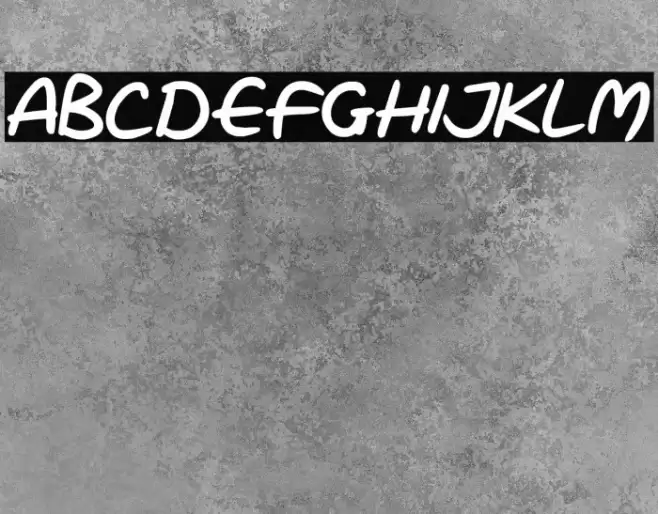
Love Marker Font
Love Marker Description
This playful and energetic font features a handwritten style with a bold and rounded appearance. The letters are slightly slanted, giving a casual and friendly vibe. The strokes are consistent in thickness, providing a uniform look across all characters. The uppercase letters are distinct and easily readable, while the lowercase letters maintain a cohesive flow. The inclusion of a heart shape in place of the letter 'O' adds a unique and whimsical touch. The numbers and special characters are designed to match the overall style, ensuring a harmonious appearance throughout.
A bold, handwritten font with a playful and casual style from Comic fonts.
- Proposed Projects: Ideal for greeting cards, playful branding, children's books, and social media graphics.
- Overall Style: Playful
- Use Case: Logos, Headlines, Greeting Cards